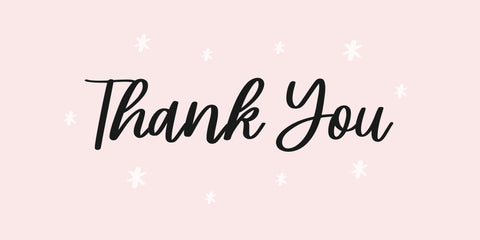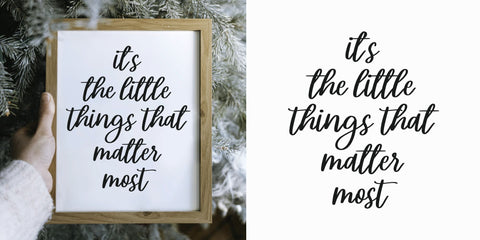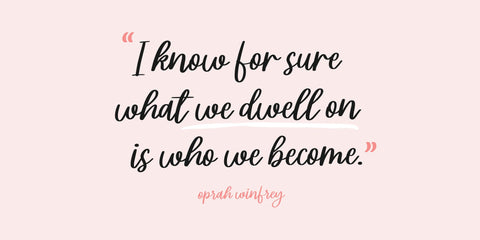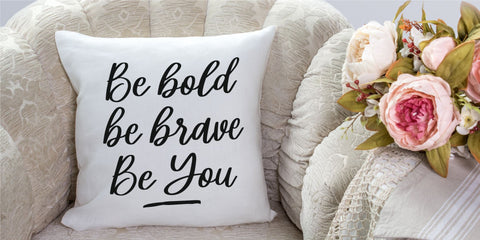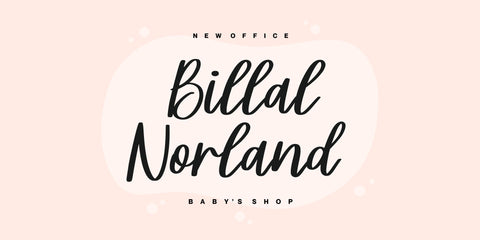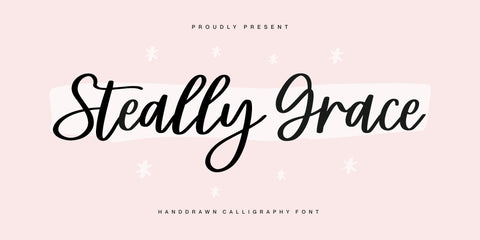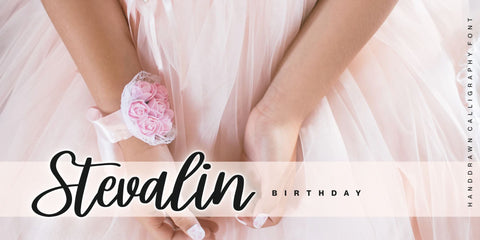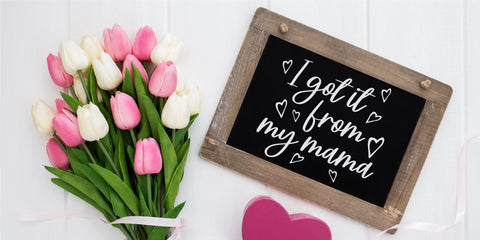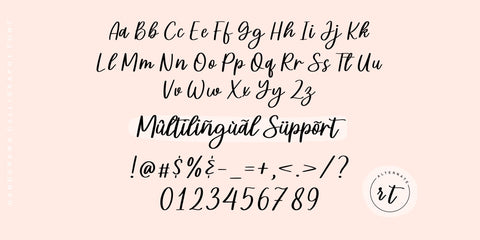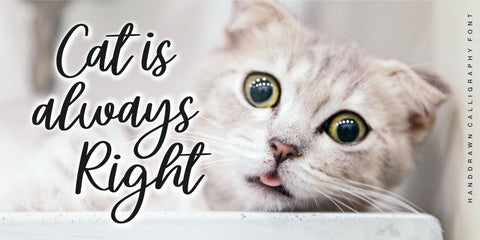
Steally Grace
Proudly Present, Steally Grace
Steally Grace is a Handdrawn Calligraphy Font
Steally Grace is perfect for product packaging, branding project, megazine, social media, wedding, or just used to express words above the background.